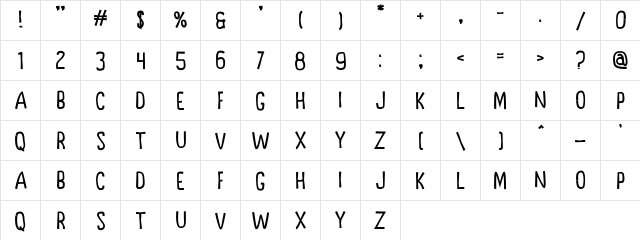
Triadi Regular
Design Context for Triadi Typeface
Triadi offers clean, dependable letterforms without strong stylistic allegiance, making it a practical choice for designers who need flexibility.
Pro Tip: Use Triadi in both headline and body roles to test its range before committing to a single application.